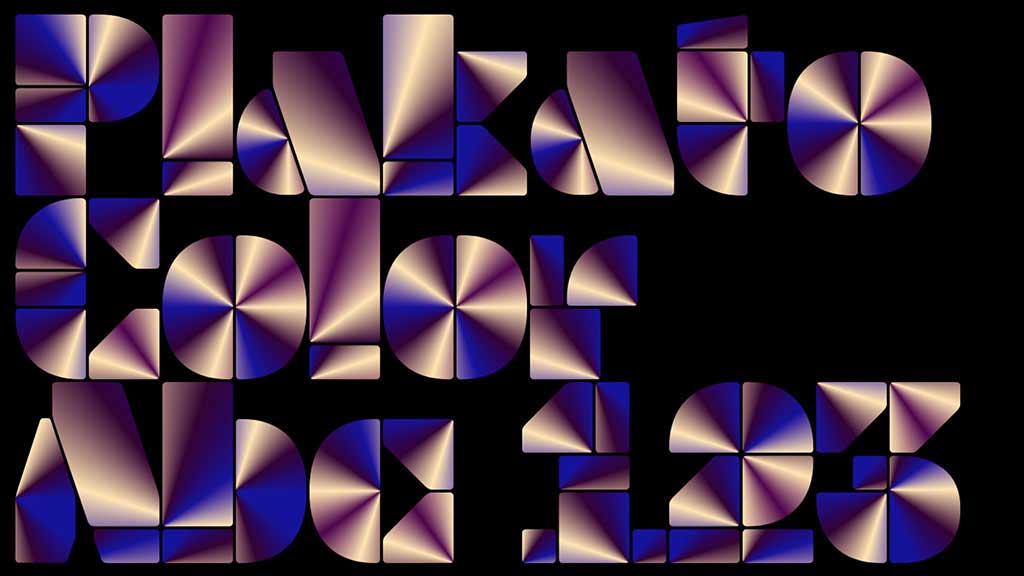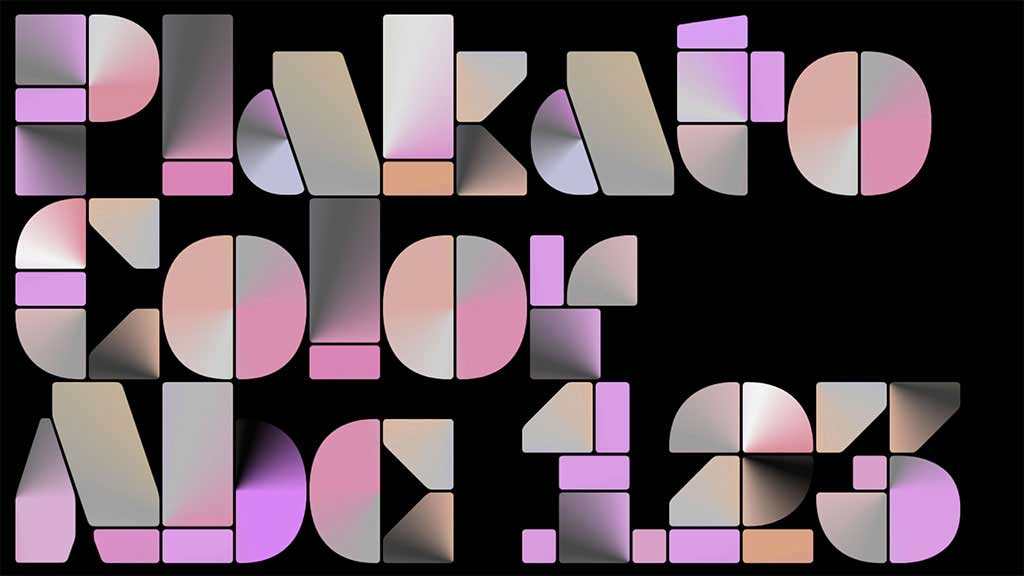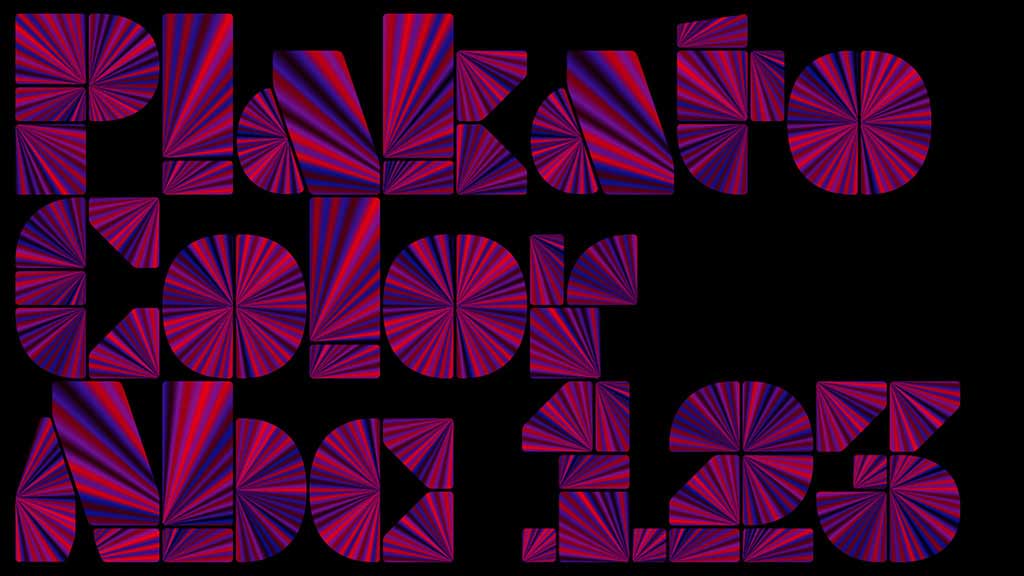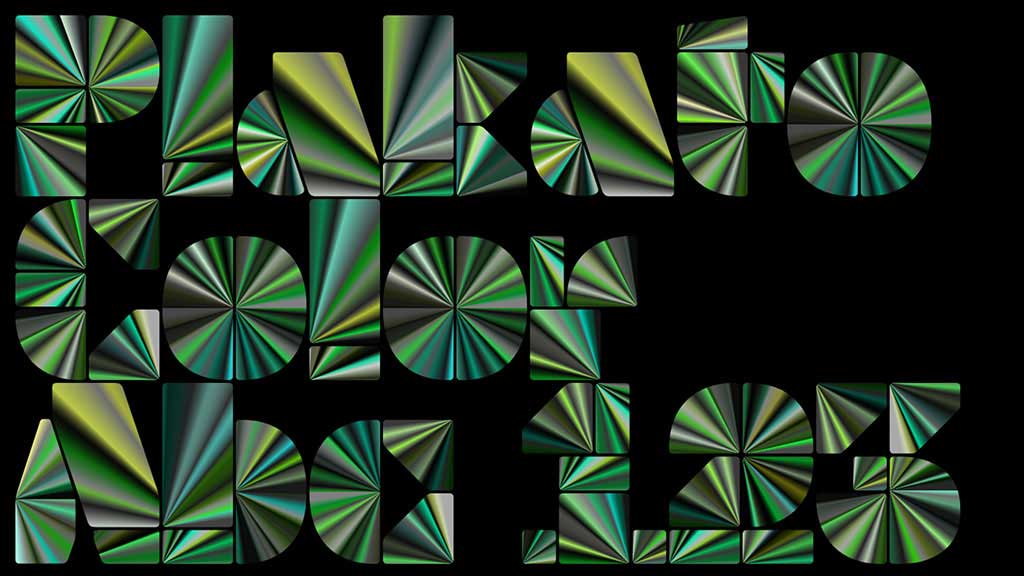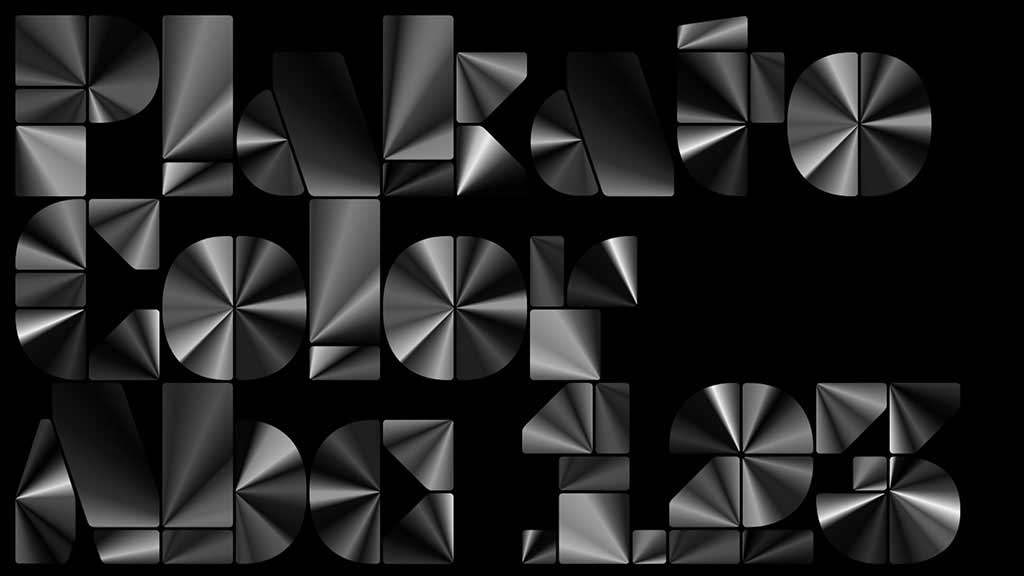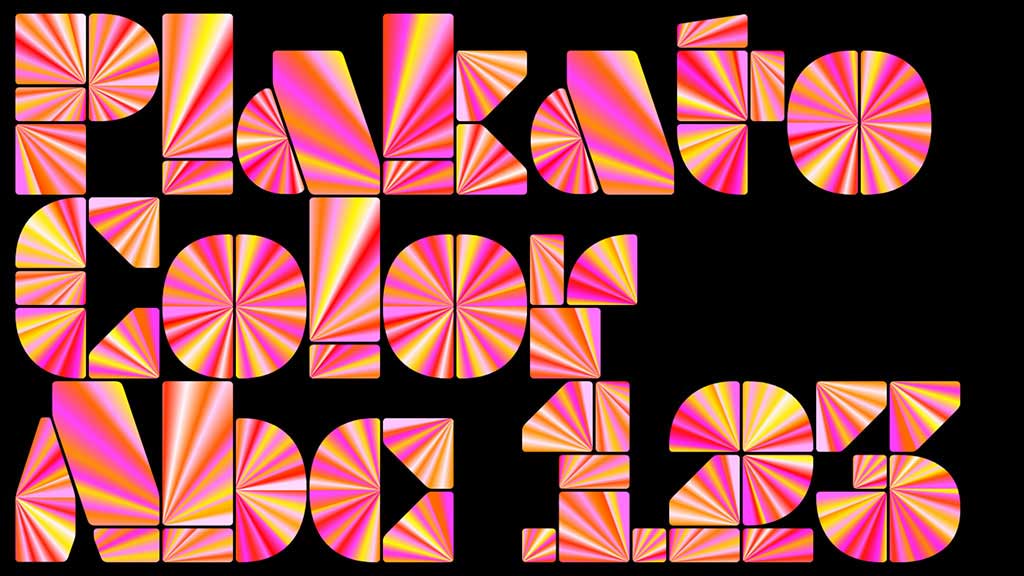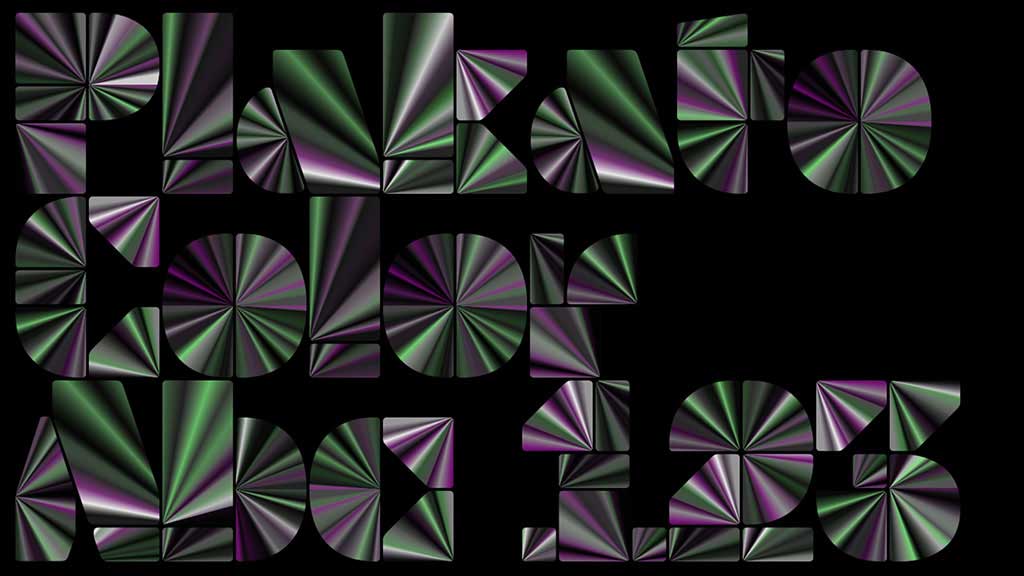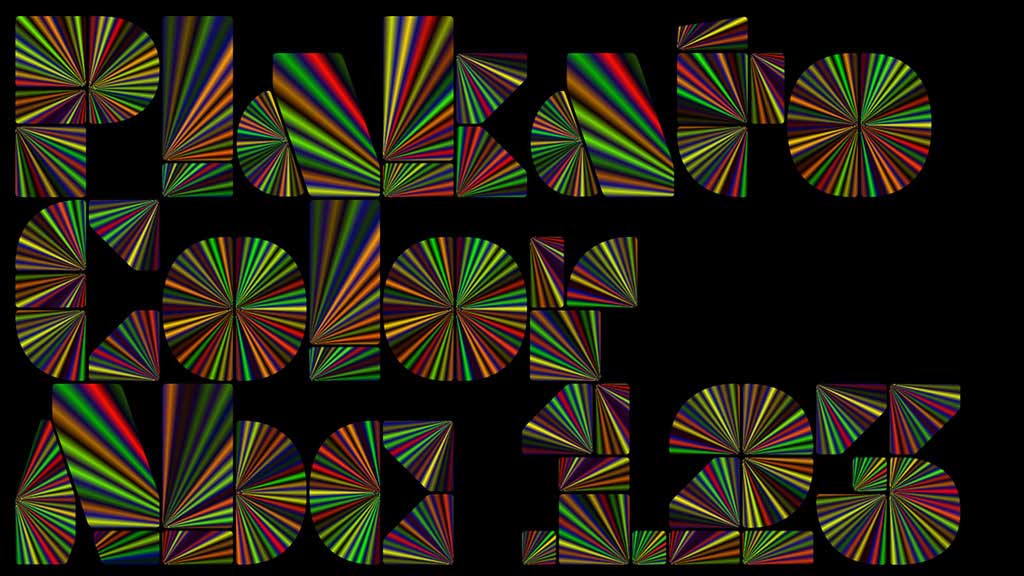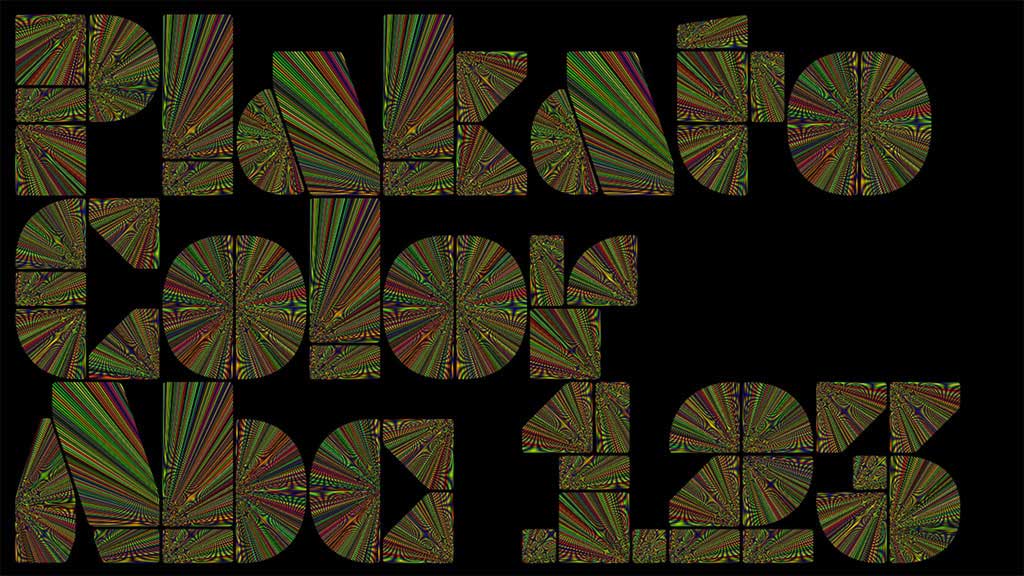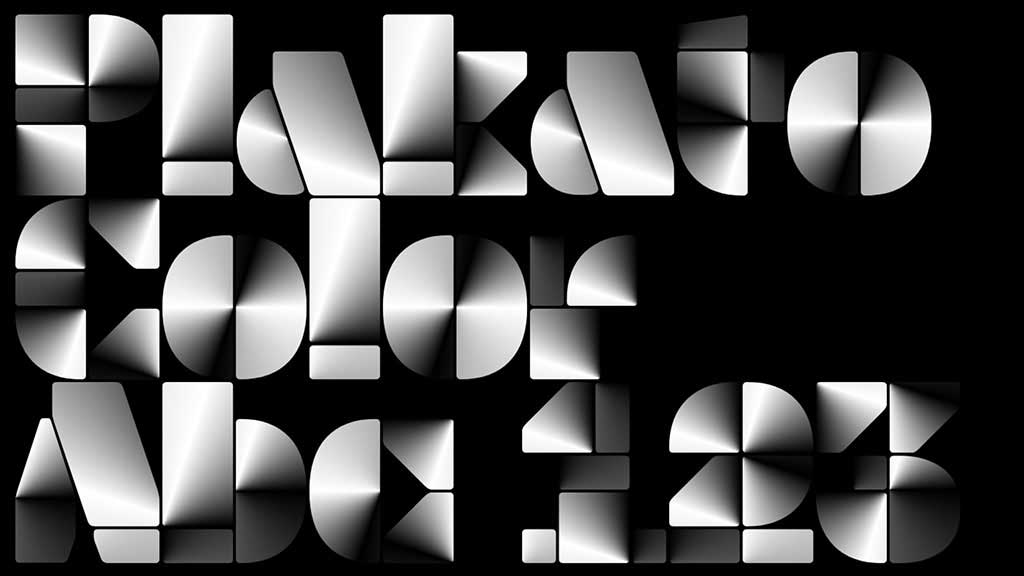
Great, your browser supports COLRv1 fonts! Plakato Color are catchy headline fonts with build-in color knowledge, and comes in the OpenType COLRv1 font format. You can choose between 24 predesigned static styles of Plakato Color, or define your own colors and style with Plakato Color Grade. Once your customized version is finished, it can be embedded just like any other webfont. If you are interested in more information or in purchasing a license, please do not hesitate to get in contact with us.
1 Plakato Color
Plakato Color is a set of 24 predefined color fonts that take advantage of the benefits of this new font format, and are available to designers in a wide variety of out-of-the-box versions.
2 Plakato Color Grade
Plakato Color Grade lets you define your own colors and styles, exactly in the way you want. Try yourself with this demo, which shows how all 1360 colors of the palette can be manually modified with intelligent sliders. You can then use your own customized version on your website. So create your own Plakato Color Grade and type in your personal style (or randomize).
OpenType COLRv1 fonts have two kinds of additional information. A ‘color logic’ defines the way a glyph is colorized (the COLR table) and color palettes which are referenced by the color logic (the CPAL table). Depending on the complexity of the font, a color palette can consist out of hundreds of colors. Plakato Color Grade has 1360.
Plakato Color are catchy headline fonts with build-in color knowledge, and comes in the OpenType COLRv1 font format. You can choose between 24 predesigned static styles of Plakato Color, or define your own colors and style with Plakato Color Grade. Once your customized version is finished, it can be embedded just like any other webfont. If you are interested in more information or in purchasing a license, please do not hesitate to get in contact with us.
1 Plakato Color
Plakato Color is a set of 24 predefined color fonts that take advantage of the benefits of this new font format, and are available to designers in a wide variety of out-of-the-box versions.
2 Plakato Color Grade
Plakato Color Grade lets you define your own colors and styles, exactly in the way you want. This video shows how all 1360 colors of the palette can be manually modified with intelligent sliders. You can then use your own customized version on your website. If you want to check out the demo yourself, please revisit this page with a browser which supports COLRv1 fonts (like Chrome98+). For more info, please have a look here.
OpenType COLRv1 have two kinds of additional information. A ‘color logic’ defines the way a glyph is colorized (the COLR table) and color palettes which are referenced by the color logic (the CPAL table). Depending on the complexity of the font, a color palette can consist out of hundreds of colors. Plakato Color Grade has 1360.